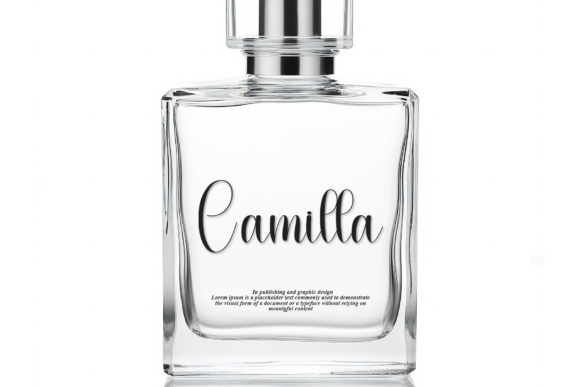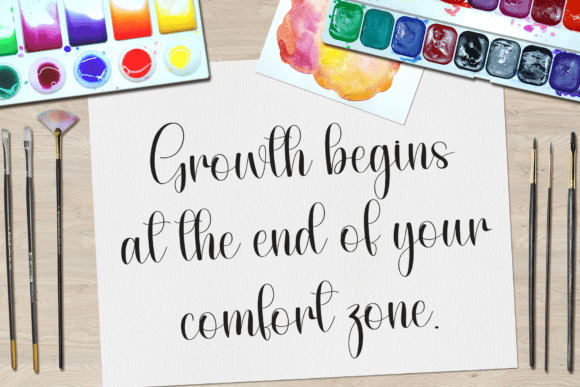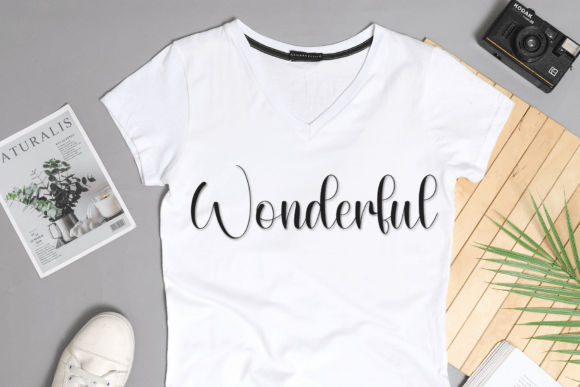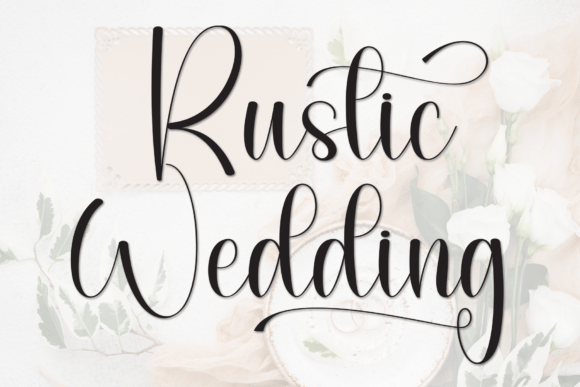
Introduction to Rustic Wedding Font
Rustic Wedding is an elegant handwritten script font that beautifully blends refined calligraphy with rustic charm.
Featuring graceful curves, delicate swashes, and a flowing rhythm, it’s perfectly suited for wedding invitations, romantic stationery, event signage, and heartfelt branding Its sophisticated yet natural look adds a timeless and personal touch, making every design feel warm, intimate, and effortlessly stylish.